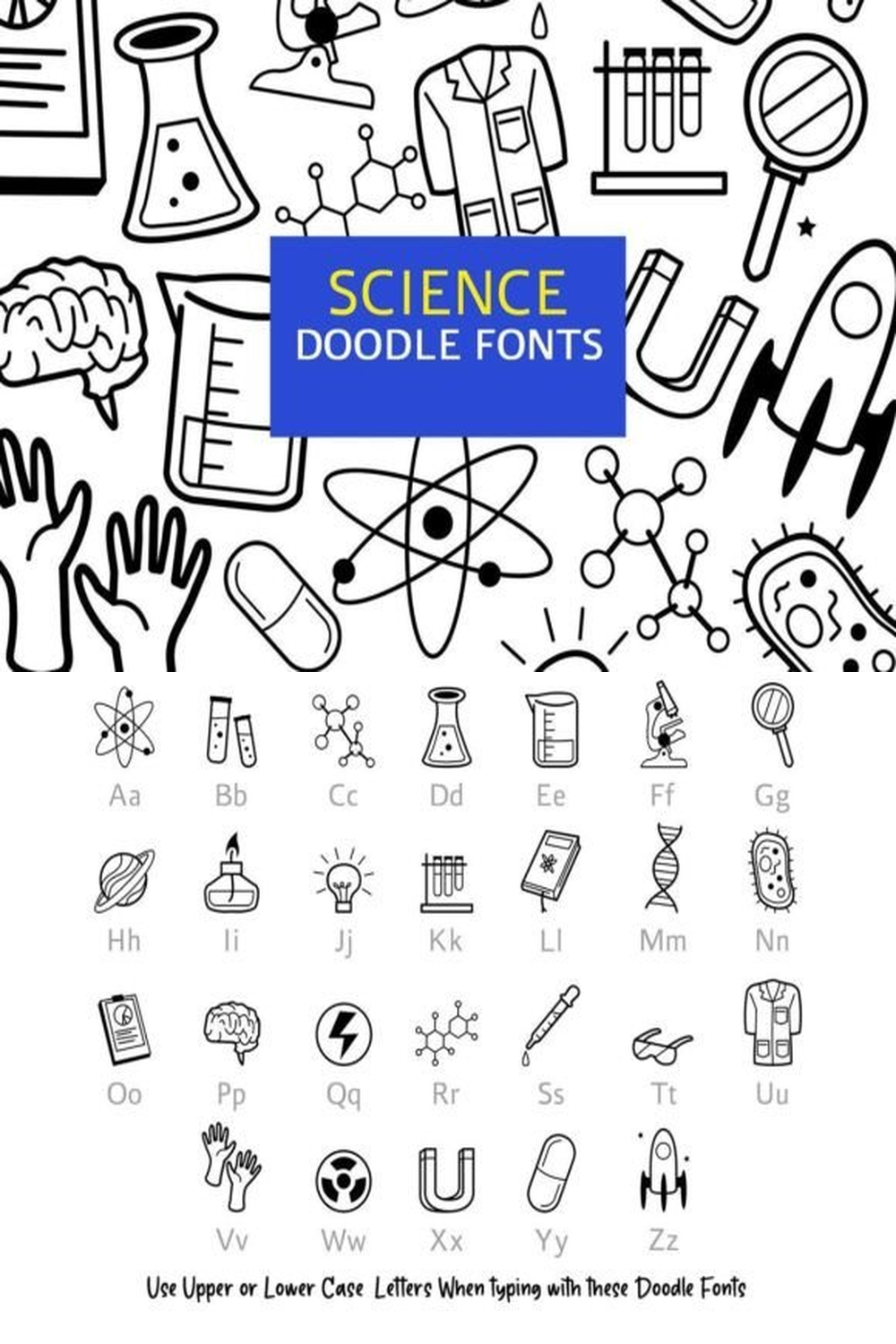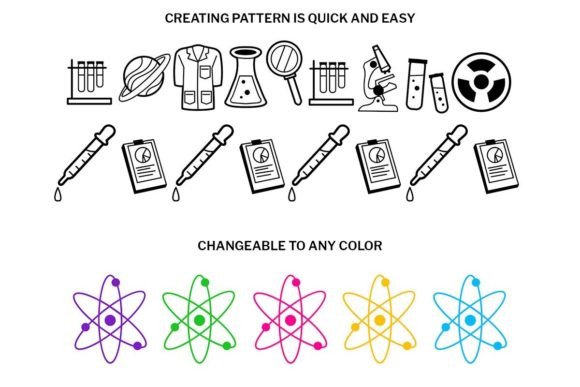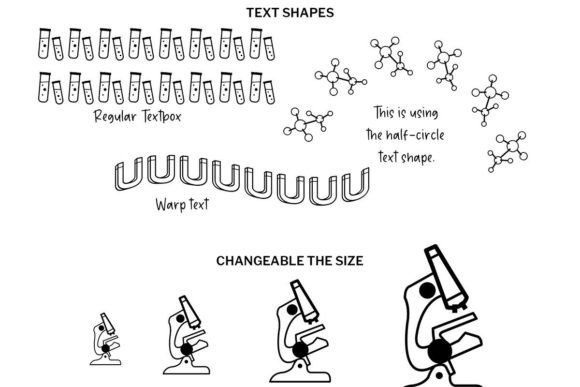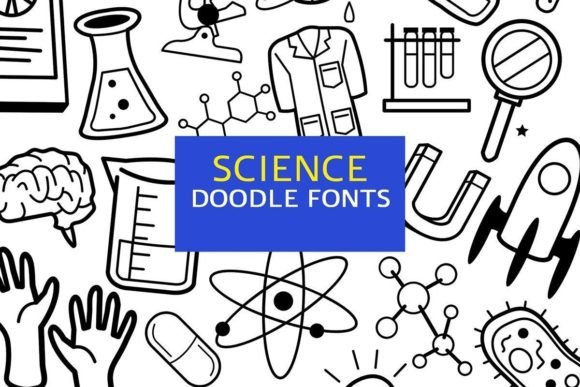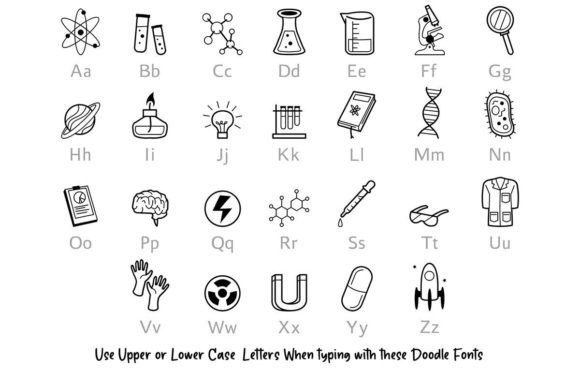
Science Doodle Font
About the Science Doodle Font
Let us introduce you to Science Doodle Font, where timeless design meets modern craftsmanship. Science Doodle is a useful and fun dingbat font. Add it confidently to your projects, and you will love the results.